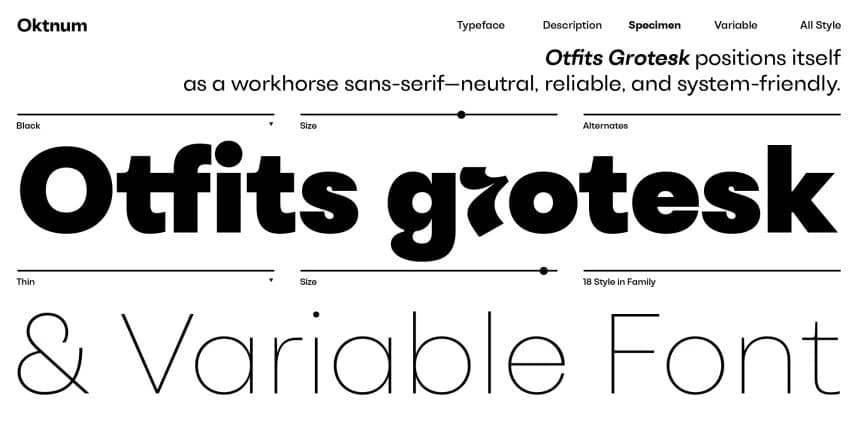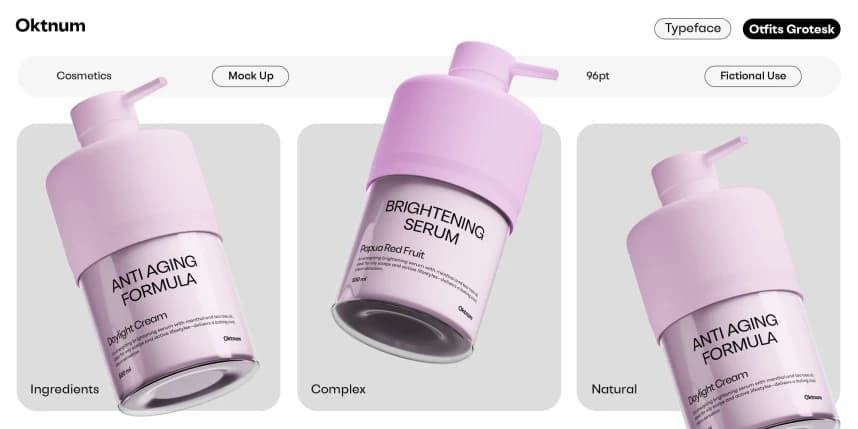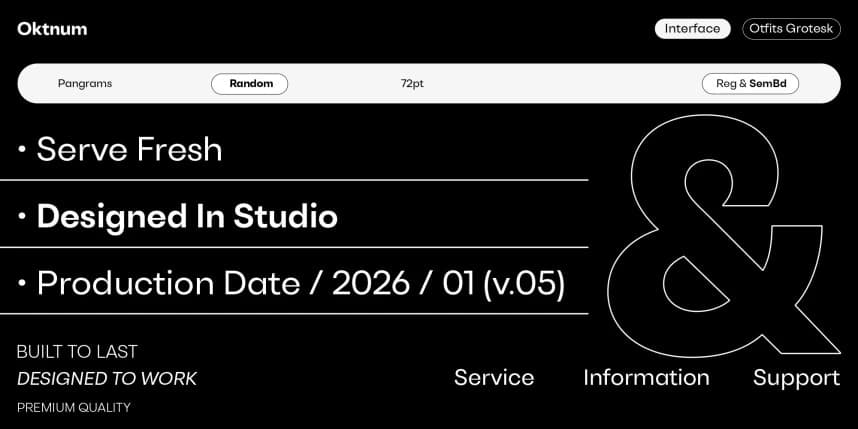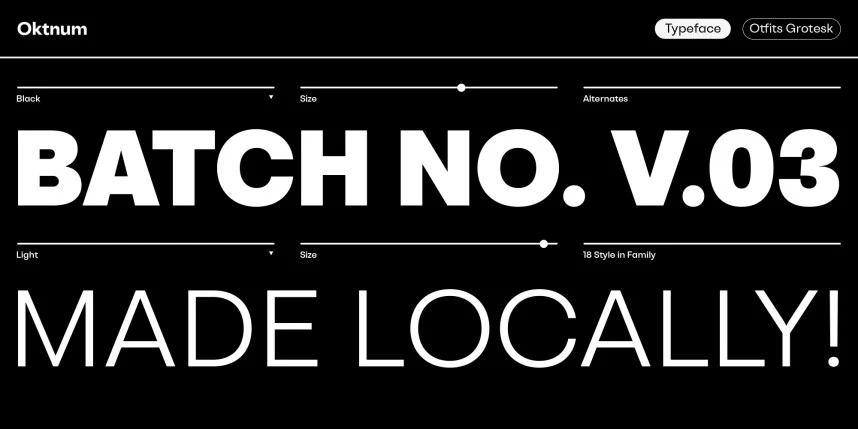
Otfits Grotesk Font
Otfits Grotesk Font is a contemporary grotesque sans-serif typeface designed with clarity, versatility, and modern usability at its core. Built on a neutral yet confident structure, Otfits Grotesk balances clean geometric logic with subtle humanist nuances, making it suitable for a wide range of design contexts.